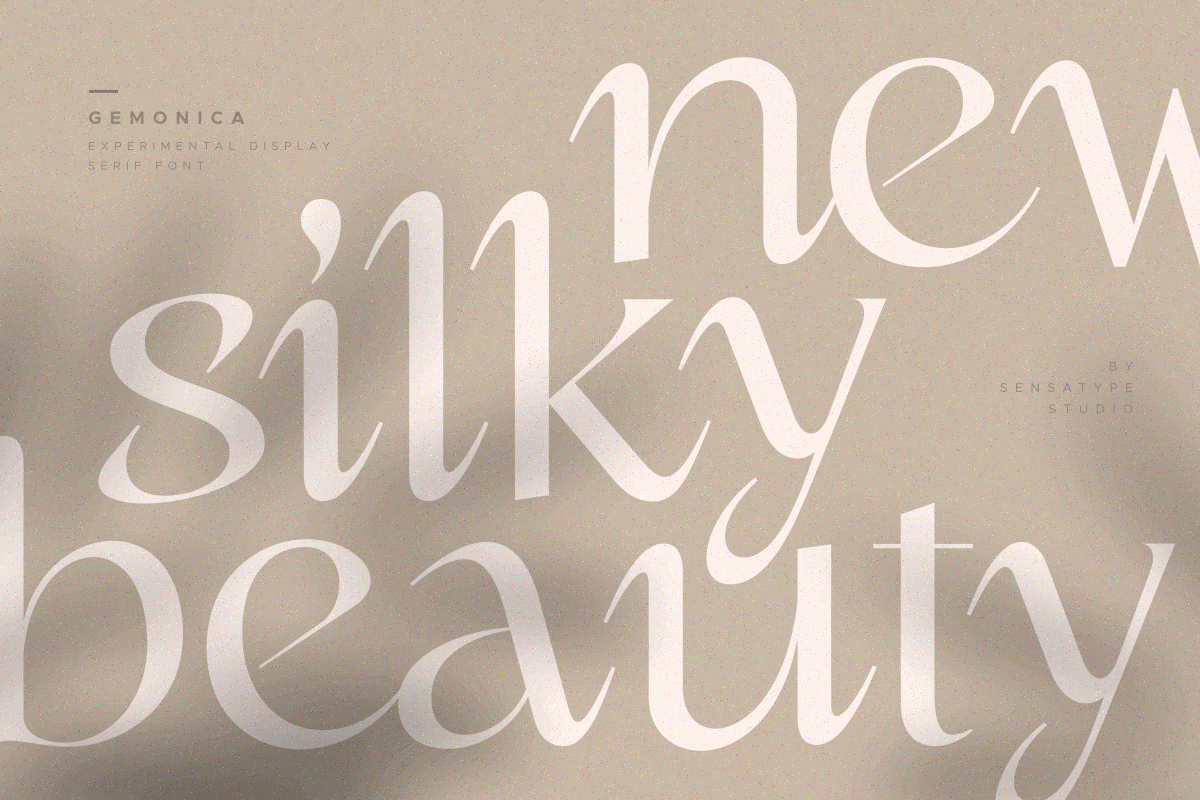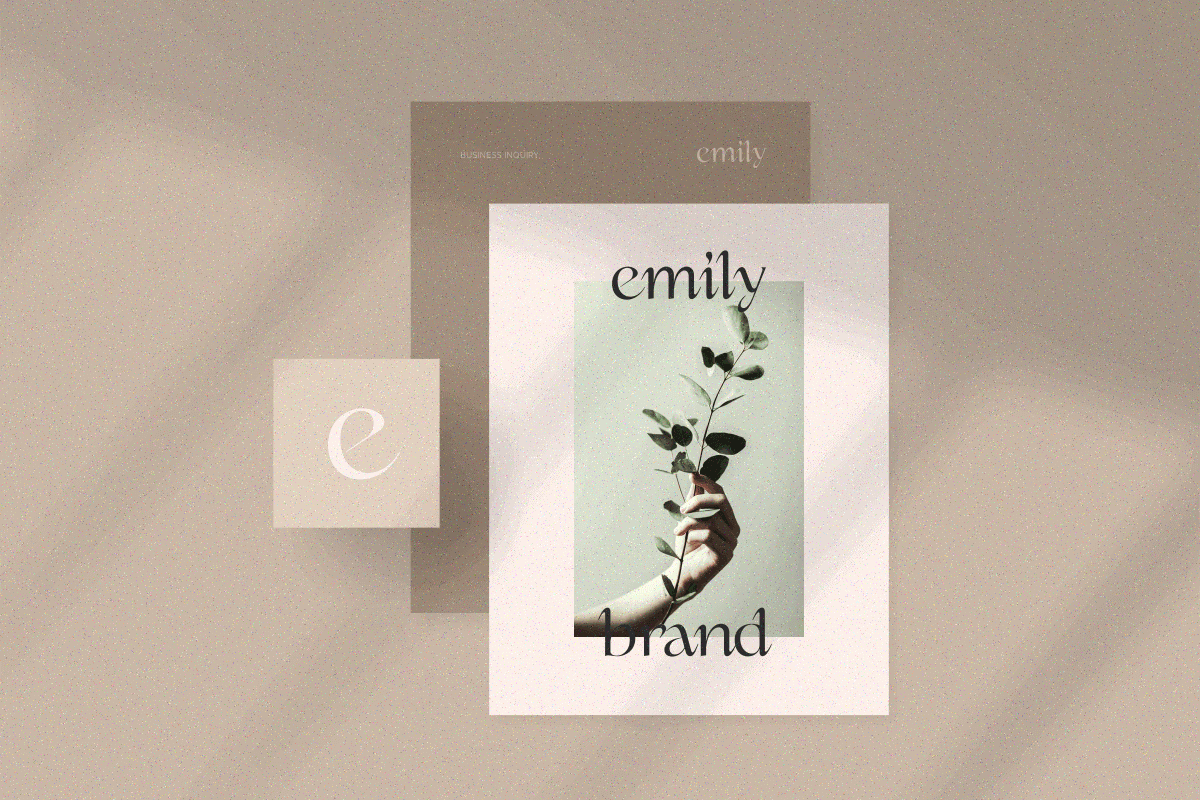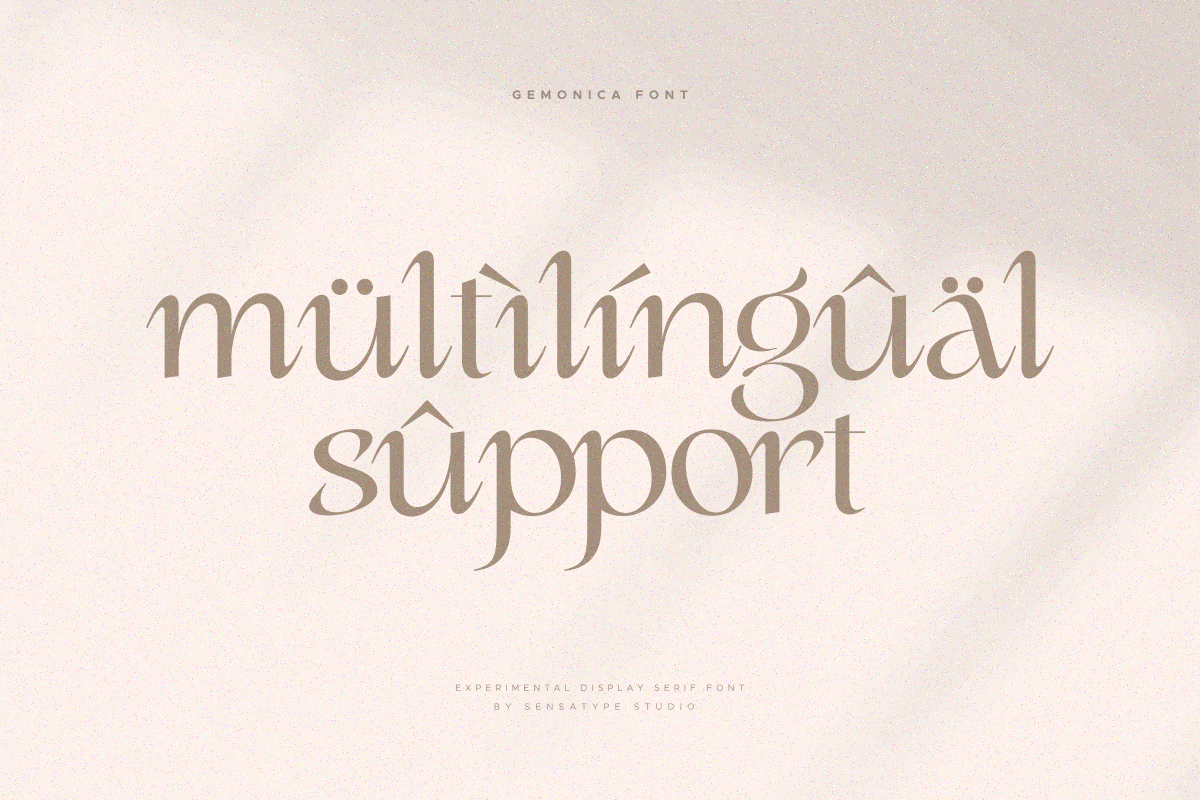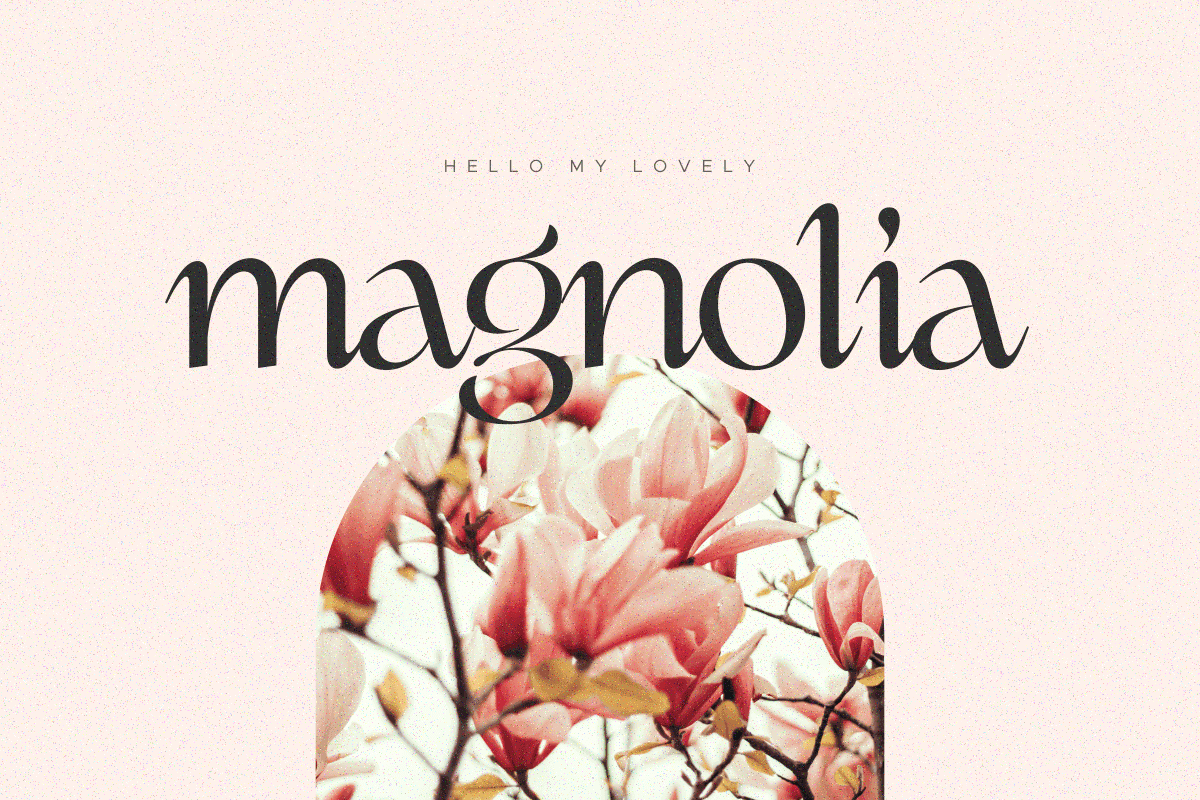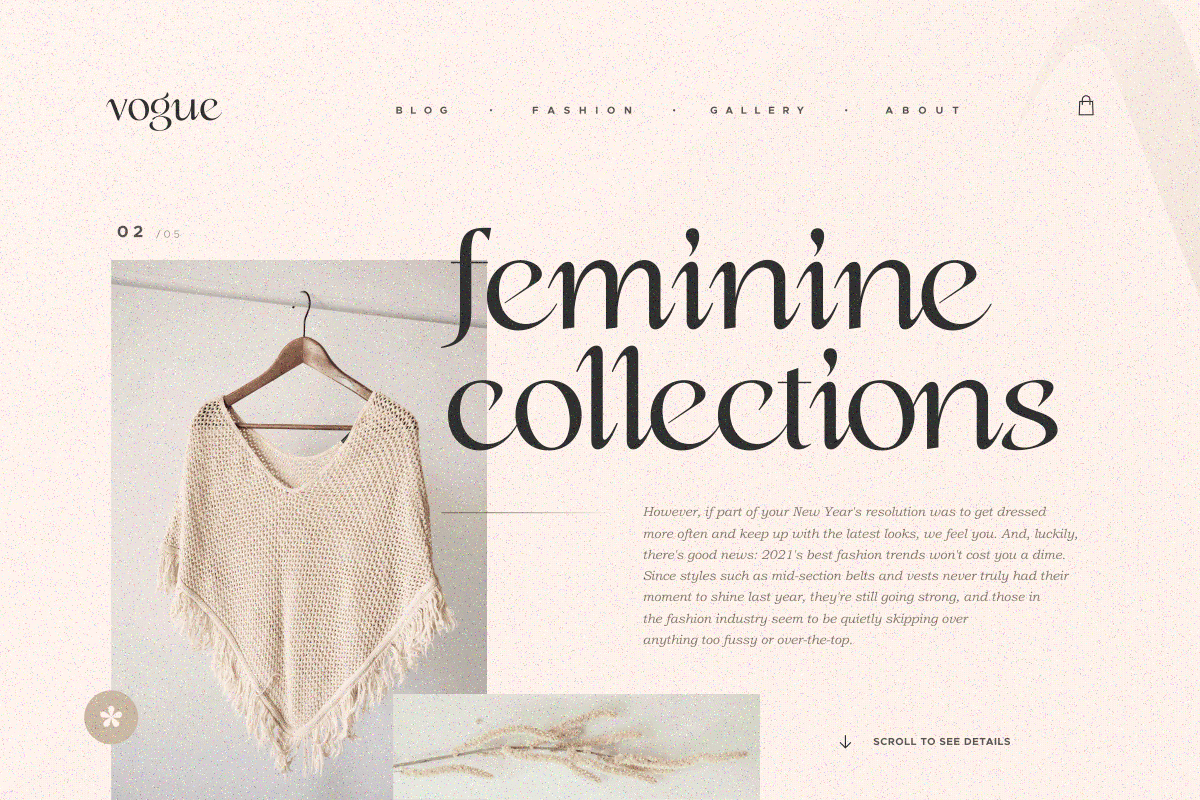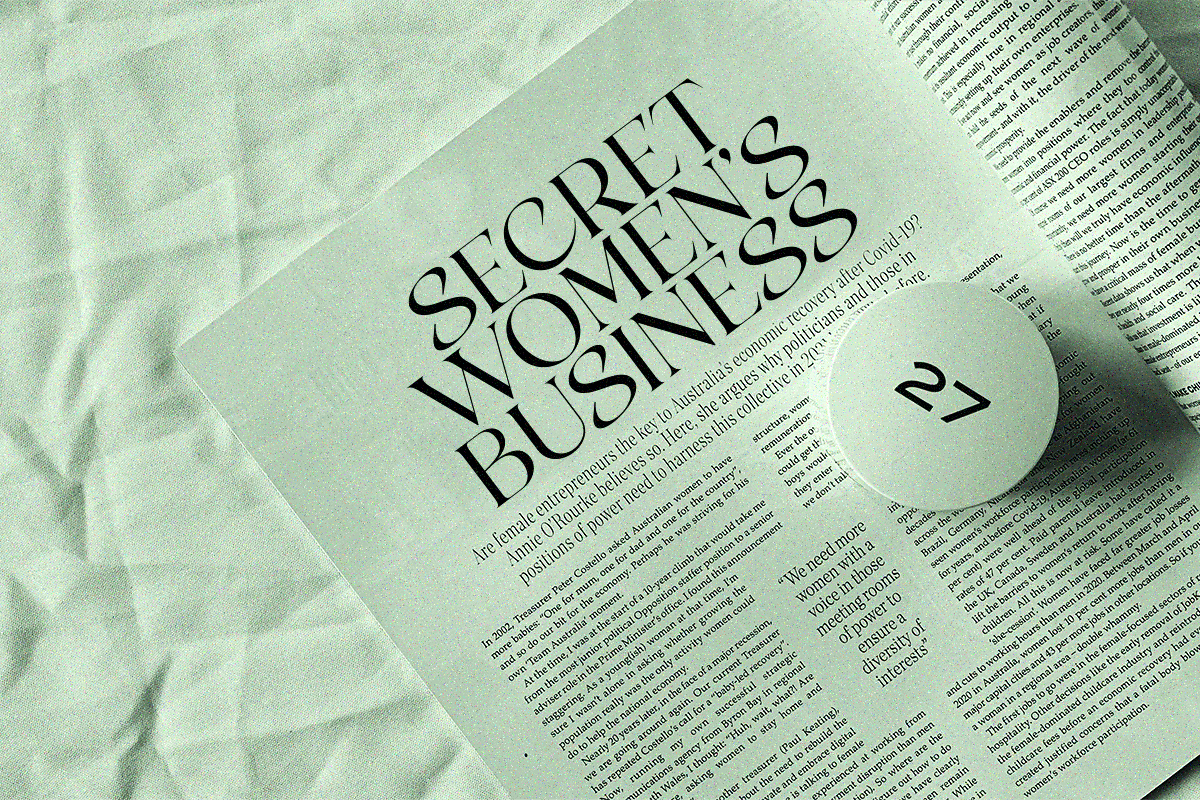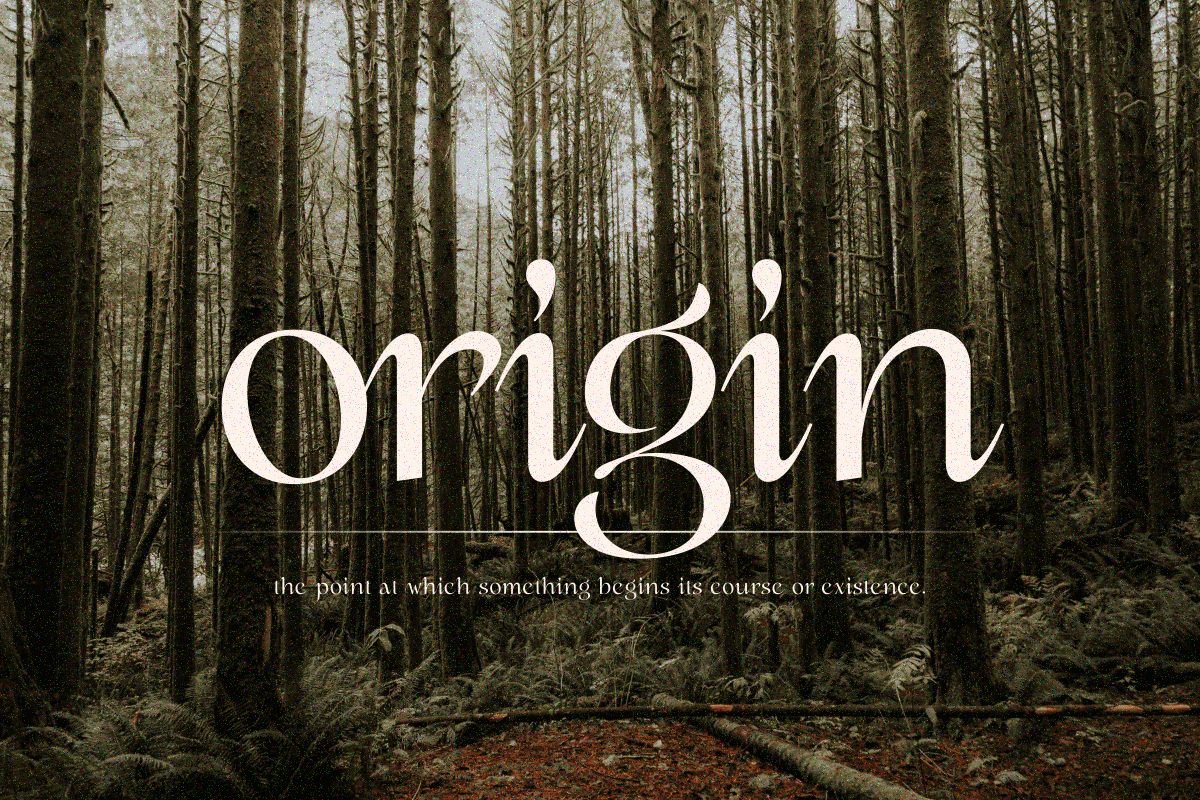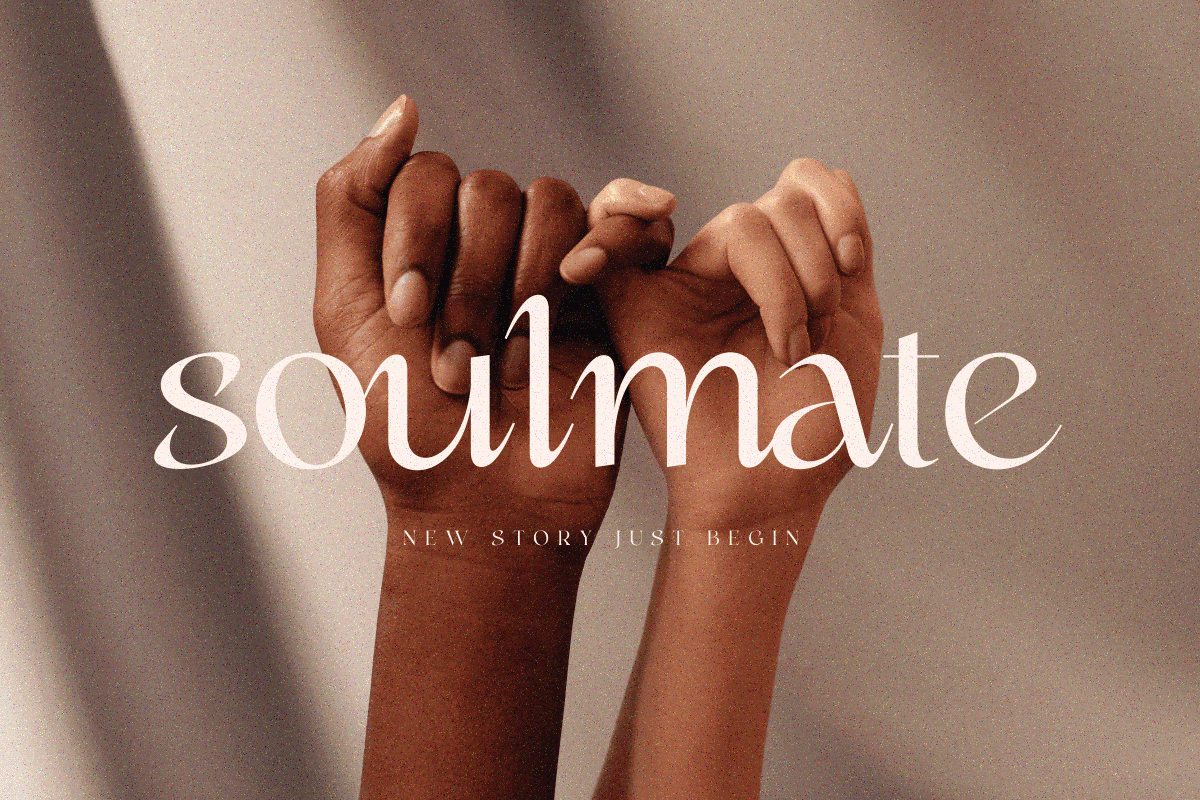
gemonica - experimental serif font
gemonica is a lovely experimental display serif font for branding and logo design that have a unique letterform.
Based on our experience as a graphic designer who works for a lot of companies, we often are requested to design a logo in a unique style but with an elegant shape. So, we try to brainstorming and create this font to make the idea is going out. This is perfect for BRANDING and LOGO DESIGN. You will get classy, elegant, and certainly unique logos with this font.
gemonica font is also included full set of:
- Multilingual characters
- Punctuations